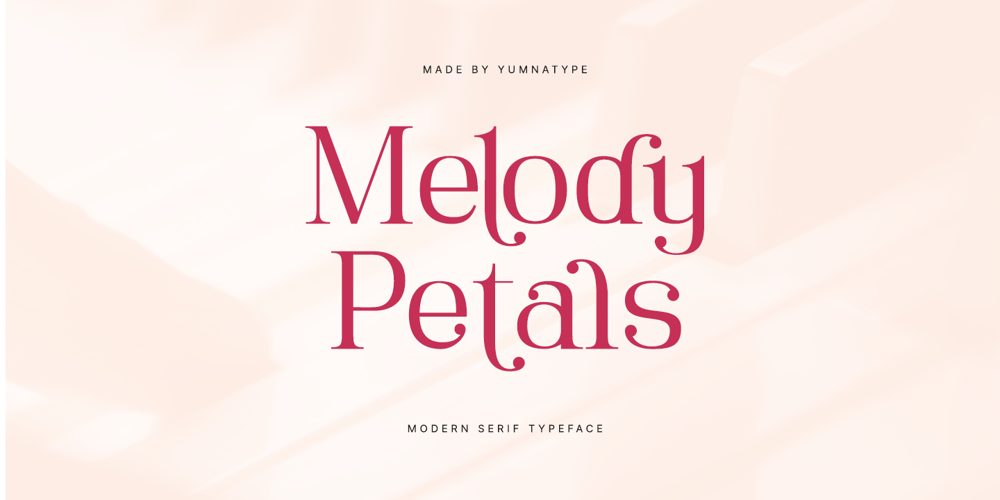
Melody Petals
Melody Petals font
Melody Petals Font Family was designed by Donis Miftahudin and published by Yumna Type. Melody Petals contains 1 styles and family package options. Melody Petals is a sophisticated serif font that embodies elegance and modernity. Crafted with precision and attention to detail, this font is designed to add a touch of refinement and sophistication to your designs.Each letter in Melody Petals is meticulously crafted with clean lines and subtle curves, creating a sense of fluidity that is both timeless and contemporary. The non-bold font weight adds to the font’s understated elegance, making it versatile and adaptable for a variety of design applications.What sets Melody Petals apart is its modern style, which adds a fresh and dynamic quality to your text. In addition, enjoy the features here.Features: Alternates Ligatures Multilingual Supports PUA Encoded Numerals and Punctuations Melody Petals fits in headlines, logos, posters, flyers, branding materials, print media, editorial layouts, and many more designs. Find out more ways to use this font by taking a look at the font preview.Thanks for purchasing our fonts. Hopefully, you have a great time using our font. Feel free to contact us anytime for further information or when you have trouble with the font. Thanks a lot and happy designing.